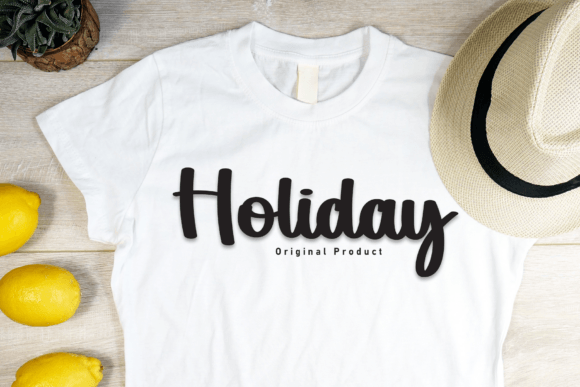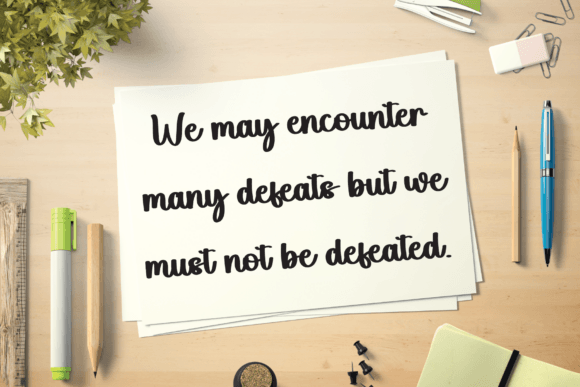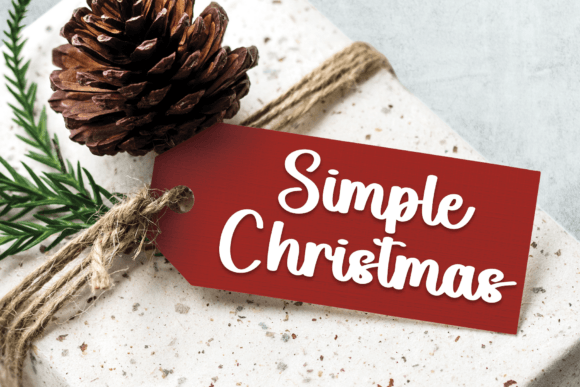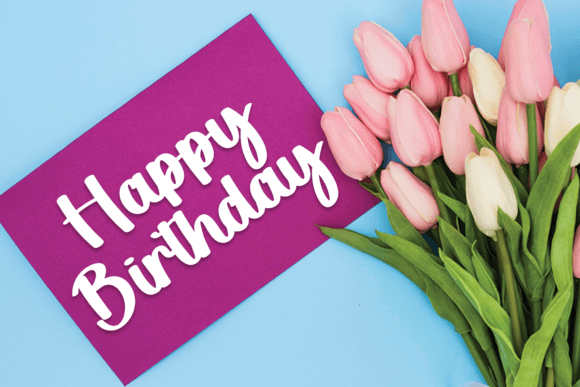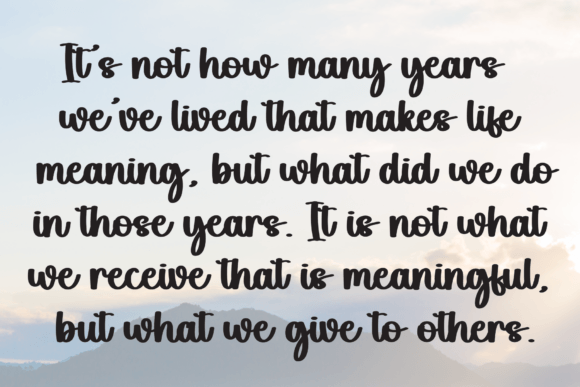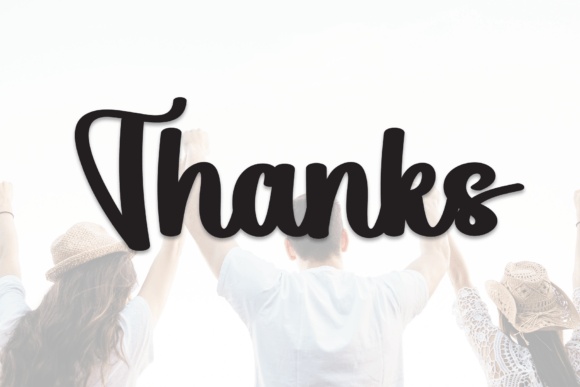
Introducing Friend Ship Font: The Perfect Blend of Whimsy and Sophistication
Are you on the hunt for a font that exudes joy, fun, and a touch of sweetness? Look no further than Friend Ship Font, a charming, handwritten typeface that’s sure to elevate your design projects to new heights. With its subtle yet vivacious personality, this font is perfect for crafters, designers, and anyone looking to add a dash of whimsy to their work.
The Essence of Friend Ship Font
Friend Ship Font is more than just a font – it’s an experience. Infused with a delightful sweetness and friendly aura, it captures the essence of joy and fun, making it perfect for a wide range of design projects. Whether you’re creating wedding invitations, greeting cards, or social media graphics, this font is sure to bring a smile to your audience’s faces.
What Makes Friend Ship Font So Special?
So, what sets Friend Ship Font apart from other fonts out there? For starters, its adorable allure effortlessly turns any piece of text into a visual feast, captivating the viewer’s eye each time. The font’s playful charm and gentle sophistication make it perfect for designers and crafters who want to add a touch of personality to their work.
Wedding invitations, save-the-dates, and greeting cards are just a few examples of projects that can benefit from Friend Ship Font’s charming personality. The font’s whimsical touch adds a romantic and playful twist to any design, making it perfect for couples who want to make their special day truly unforgettable.
Bringing Whimsy to Your Design Projects
Friend Ship Font is more than just a font – it’s a design solution. Whether you’re a professional designer or a DIY crafter, this font is perfect for anyone looking to add a dash of personality to their work. From social media graphics to blog posts, Friend Ship Font is sure to bring a touch of fun and whimsy to any design project.
Key Features of Friend Ship Font
- Handwritten typeface: Friend Ship Font is a charming, handwritten typeface that’s perfect for adding a personal touch to your designs.
- Subtle yet vivacious: This font is infused with a delightful sweetness and friendly aura, making it perfect for designs that require a touch of whimsy.
- Playful charm and gentle sophistication: Friend Ship Font delivers a perfect mix of playful charm and gentle sophistication, making it perfect for a wide range of design projects.
- Adorable allure: The font’s adorable allure effortlessly turns any piece of text into a visual feast, captivating the viewer’s eye each time.
Tips for Using Friend Ship Font
Here are a few tips for getting the most out of Friend Ship Font:
- Pair with bold fonts: Pair Friend Ship Font with bold fonts for a striking contrast that adds visual interest to your designs.
- Use in combination with graphics: The font’s playful personality pairs perfectly with graphics, making it perfect for designs that require a touch of whimsy.
- Experiment with colors: Friend Ship Font looks great in a variety of colors, so don’t be afraid to experiment and find the perfect hue for your design.
In conclusion, Friend Ship Font is a charming, handwritten typeface that’s perfect for designers and crafters who want to add a touch of whimsy to their work. With its subtle yet vivacious personality, playful charm, and gentle sophistication, this font is sure to elevate your design projects to new heights. So why wait? Download Friend Ship Font today and experience the charismatic appeal of this delightful font for yourself!